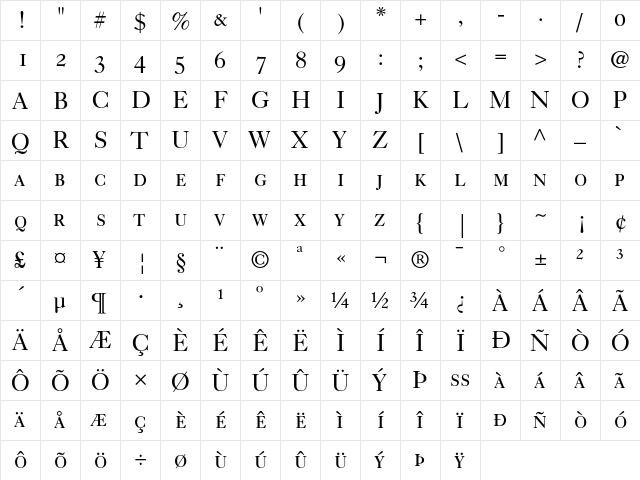
Caslon 540 Roman Small Caps & Oldstyle Figures
| Style | Roman Small Caps & Oldstyle Figures |
Design Context for Caslon 540 Typeface
Caslon 540 brings classic typographic sensibility to the table — its serifs and measured letterforms reflect centuries of print heritage.
Pro Tip: Use Caslon 540 for editorial body copy and considered headline work. Pair with a neutral sans for UI elements or captions to create a classic hierarchy.